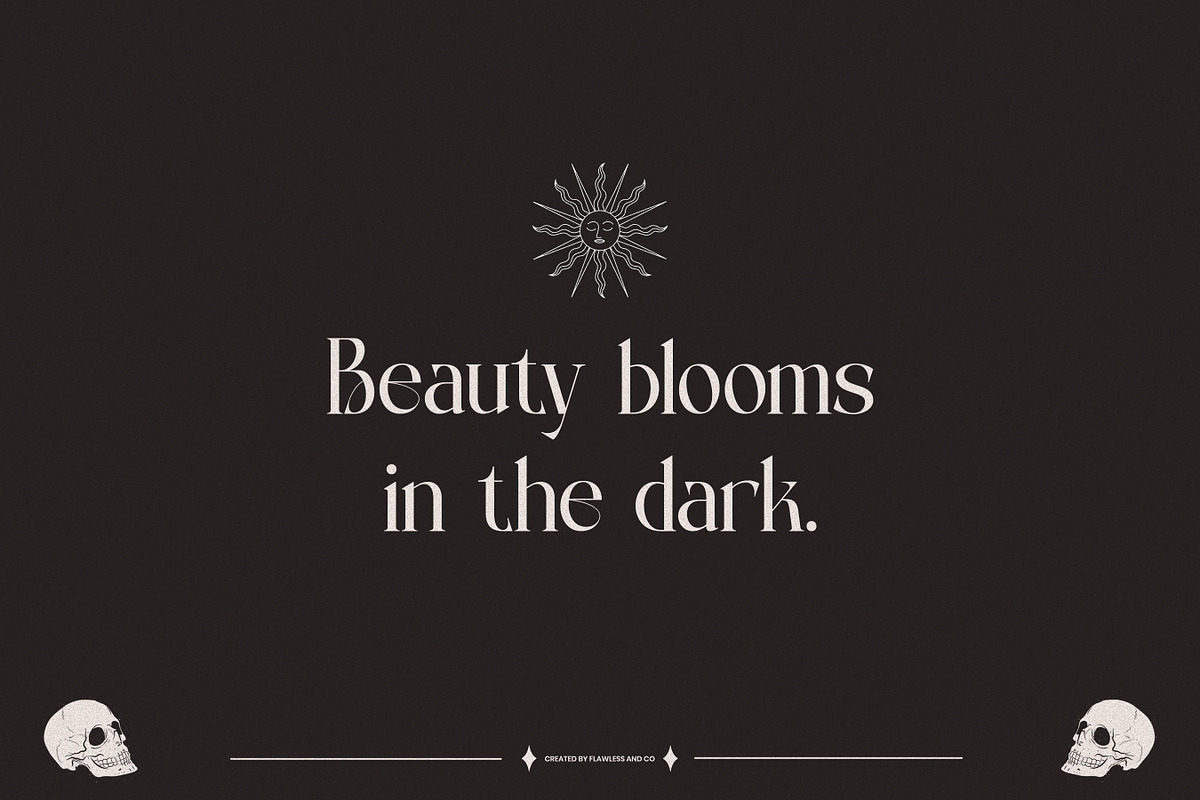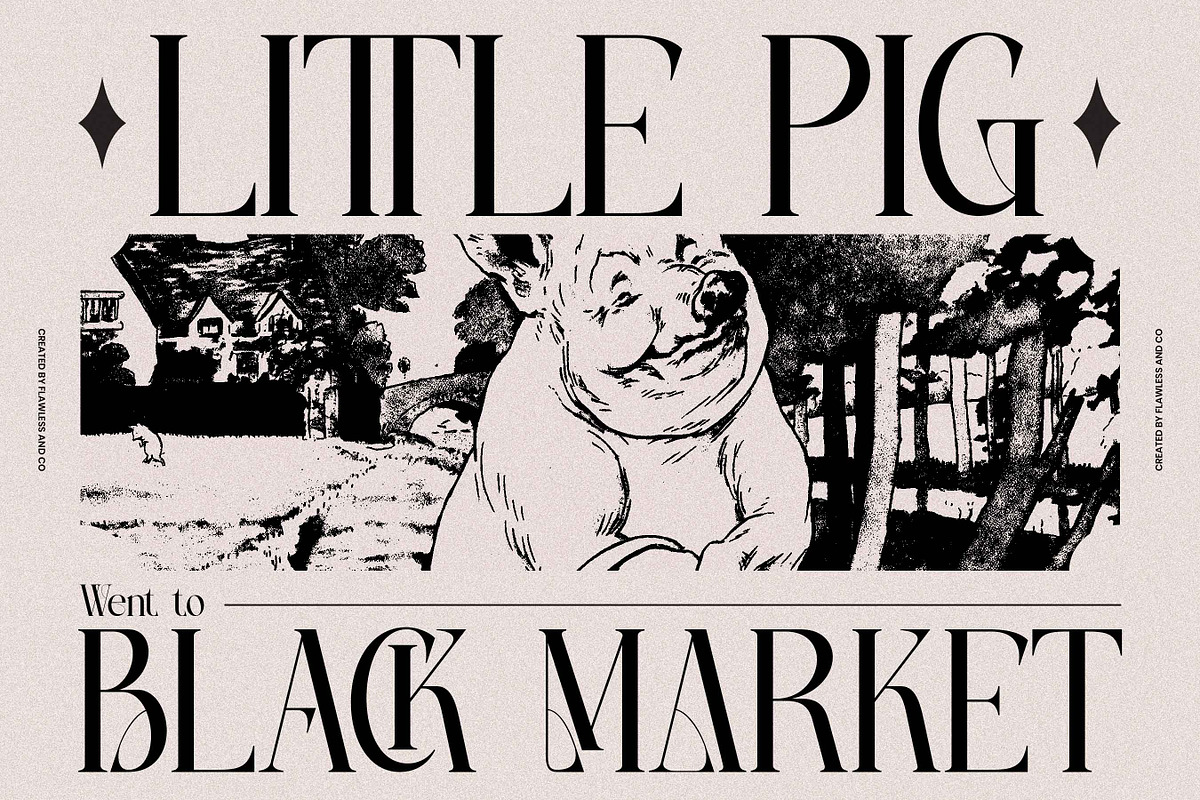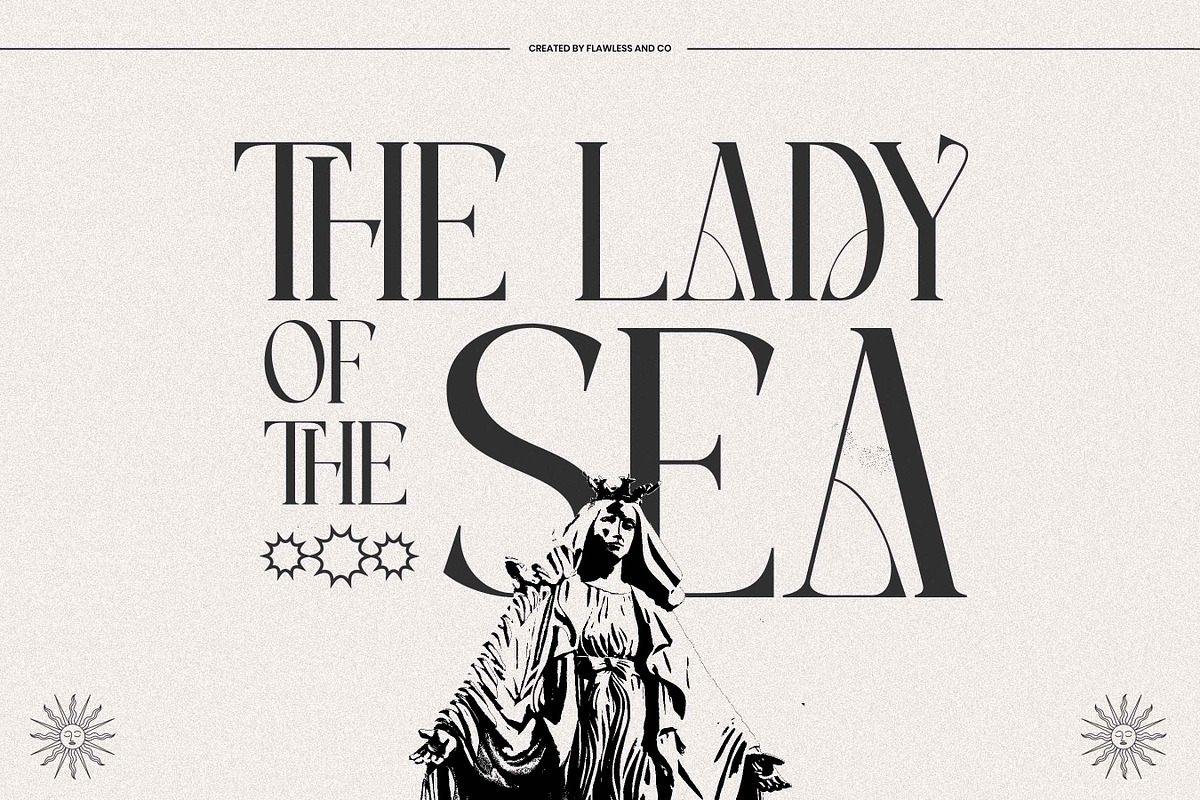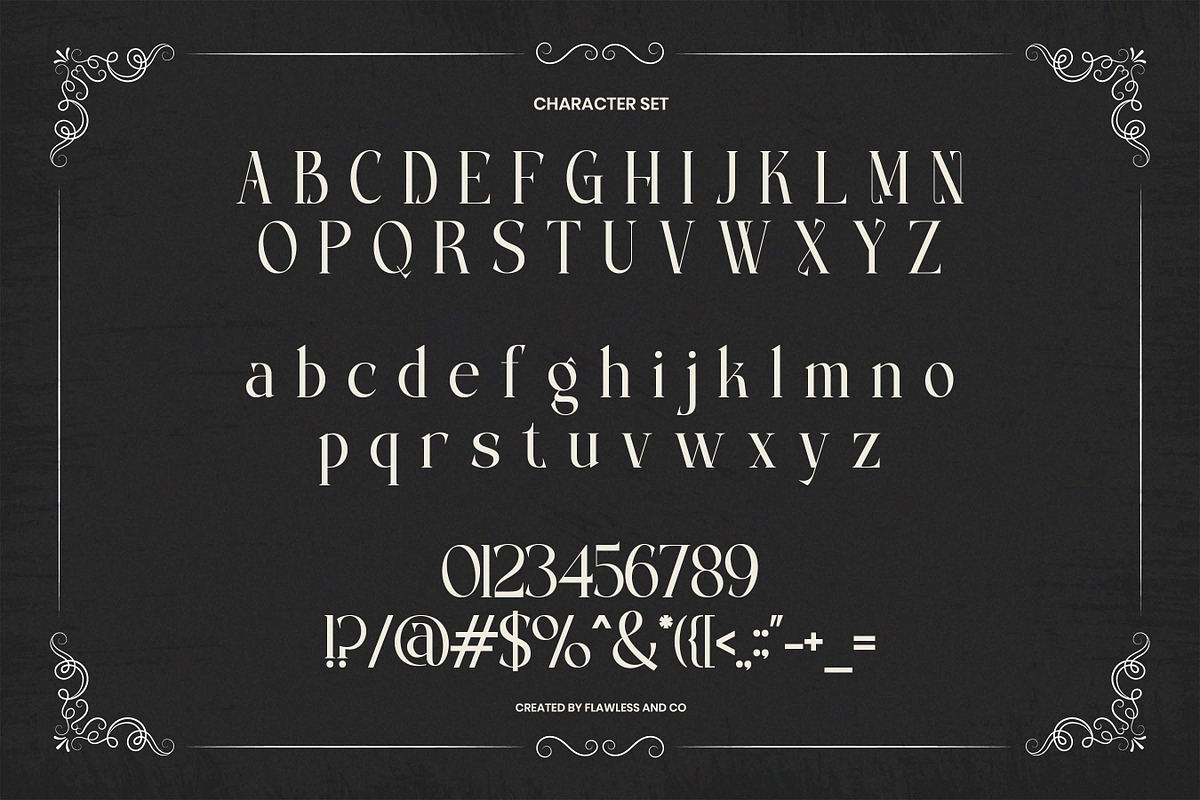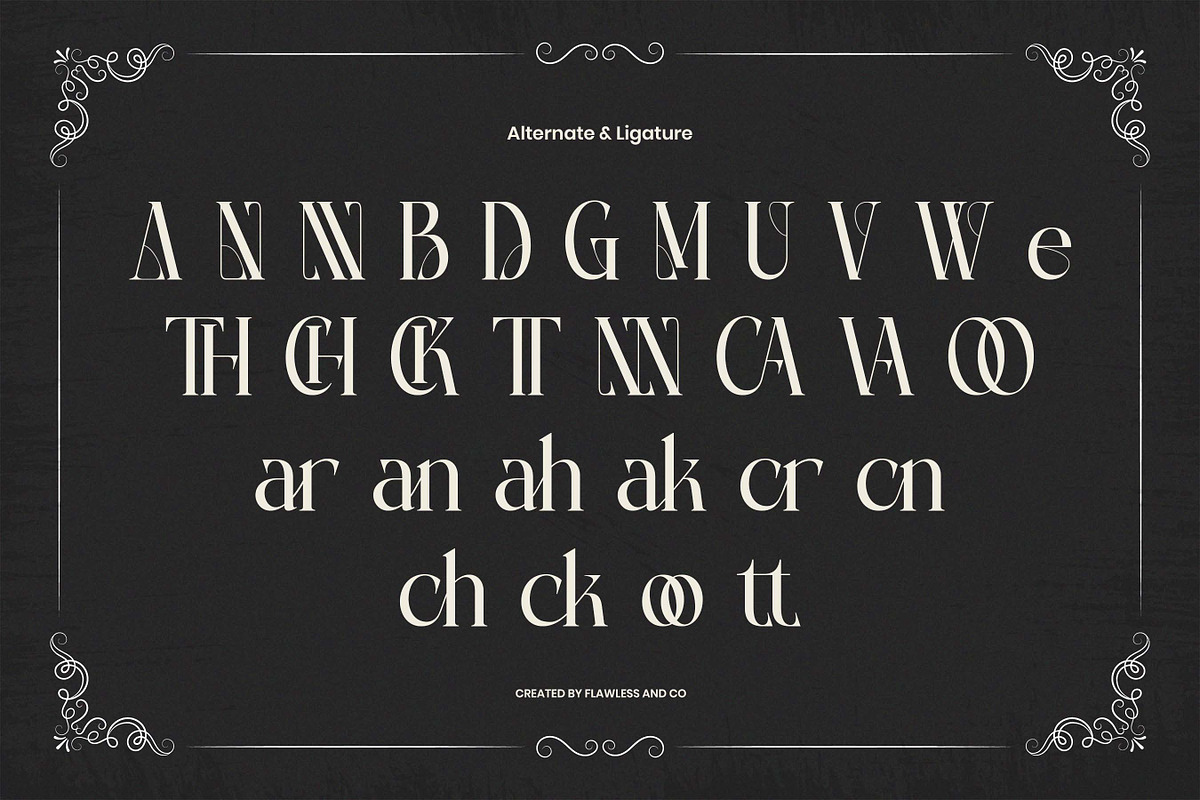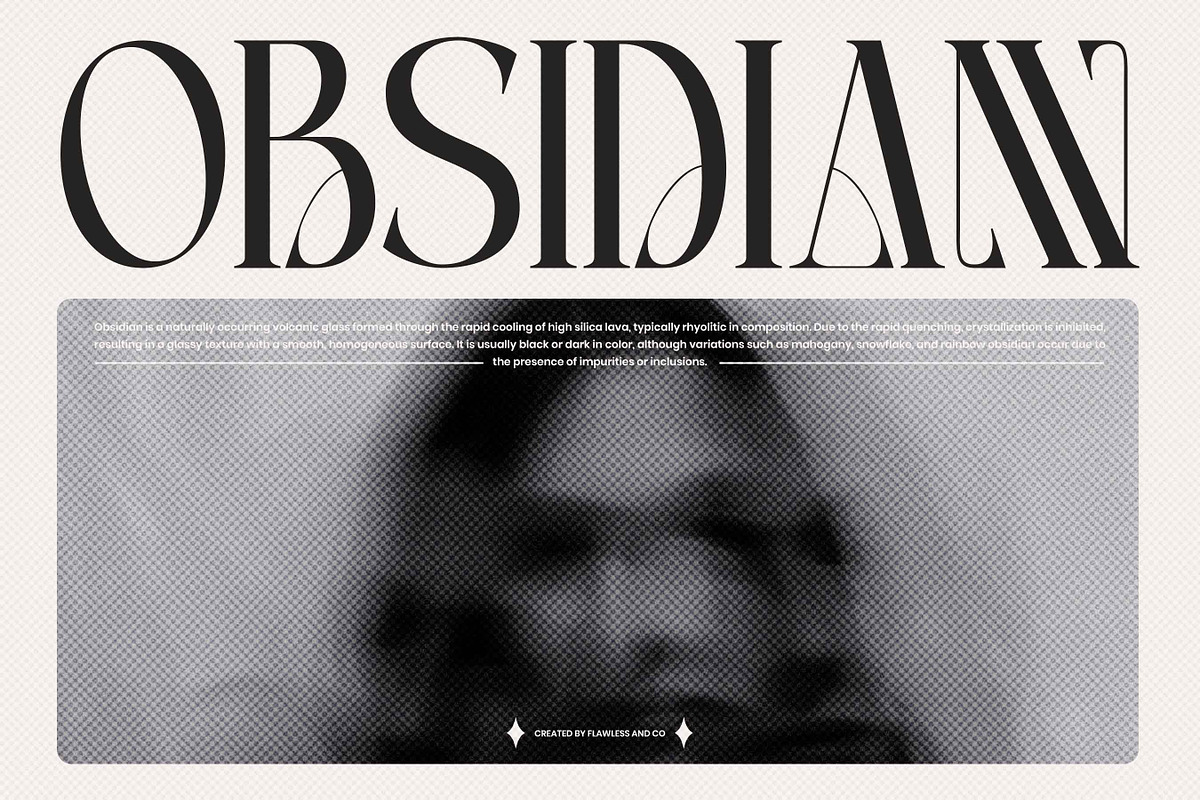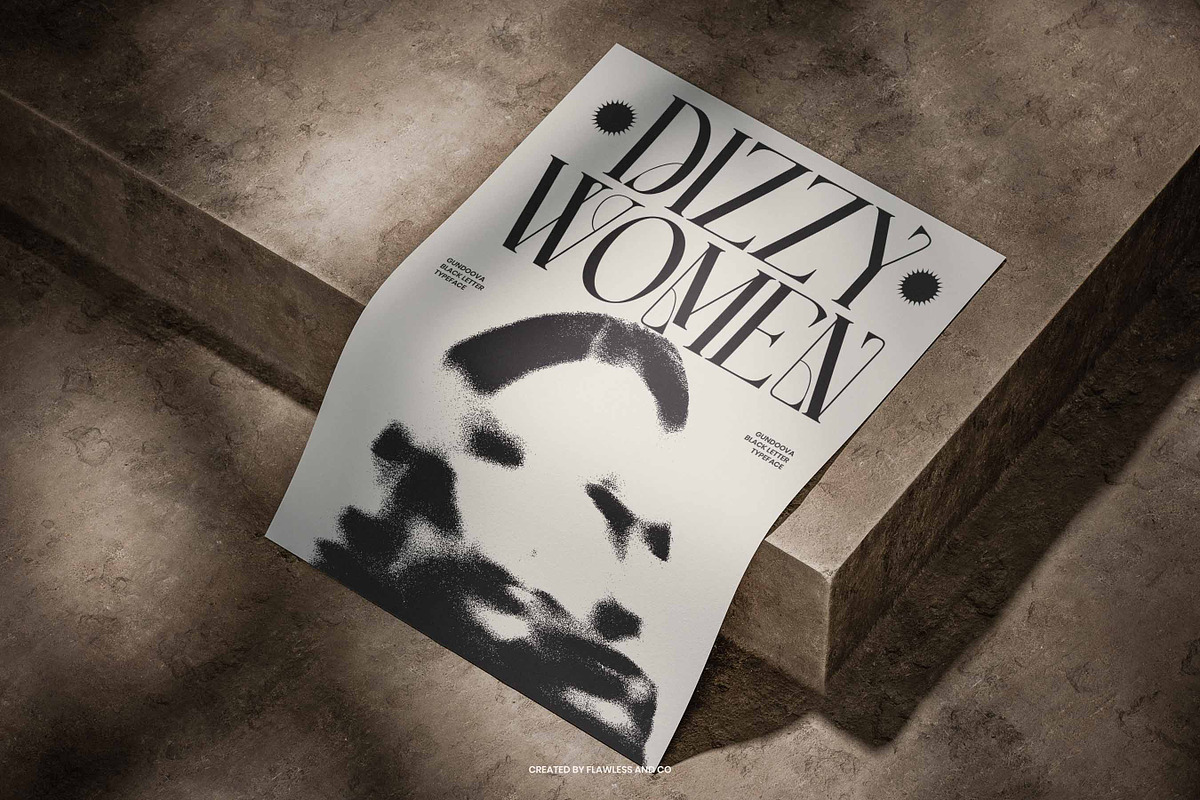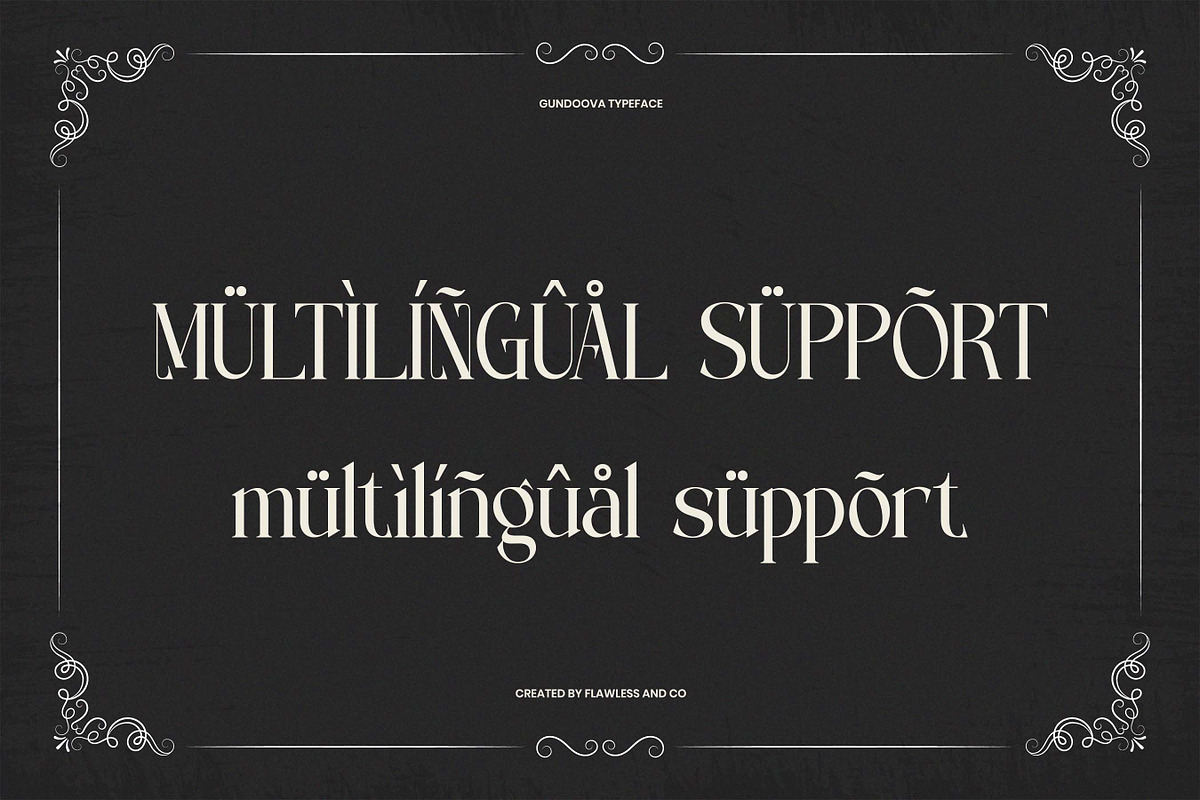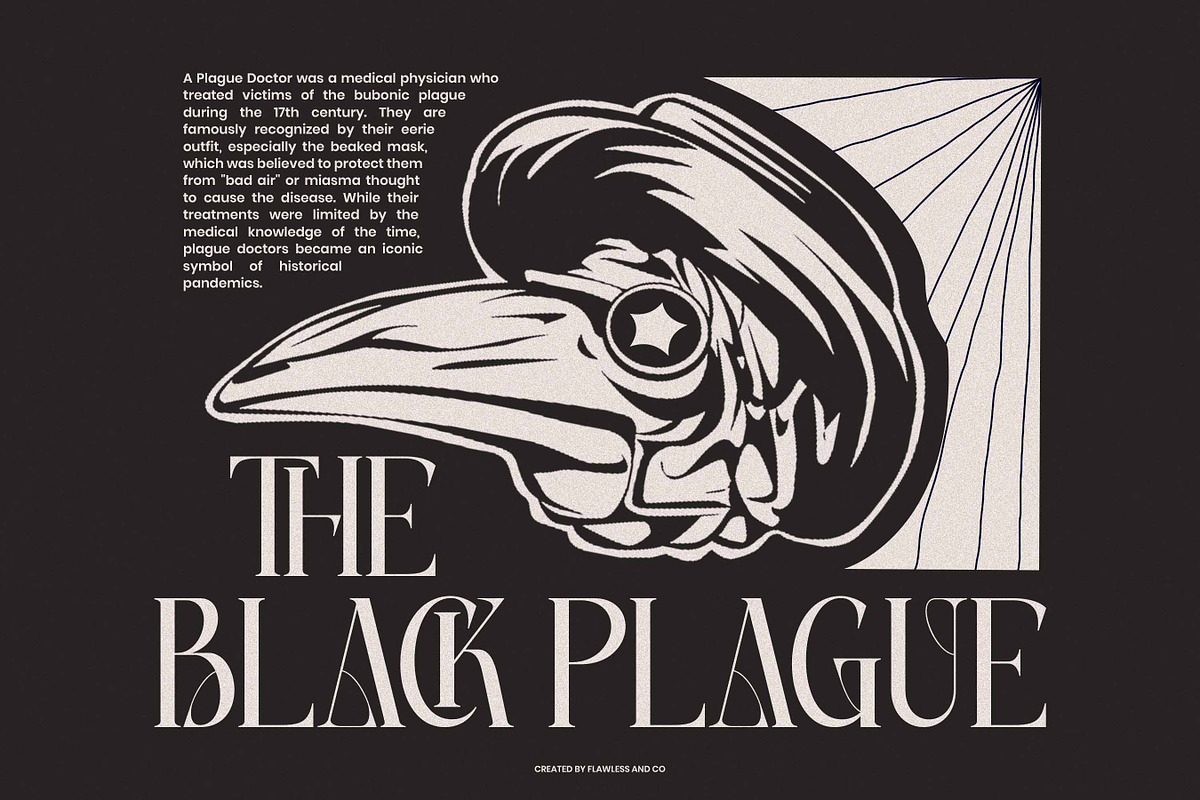
Gundoova - Blackletter Serif Font
Gundoova – A Bold Blackletter Display Font
Gundoova is a fierce and commanding blackletter font rooted in gothic tradition and medieval flair. Crafted with bold strokes, intricate detailing, and sharp serifs, Gundoova channels the power of historic typography into a bold, contemporary display style. Its dramatic presence and old-world elegance make it perfect for headlines, logos, tattoos, apparel, posters, and anything that craves a sense of dark allure and vintage authority. Whether you’re designing for a heavy metal band, crafting a liquor label, or exploring fantasy-themed branding, Gundoova brings intensity and sophistication in equal measure. The letterforms are carefully balanced to maintain readability while delivering an unmistakable blackletter identity that demands attention.
- All Uppercase Letters
- Classic Blackletter Style with Modern Edge
- Sharp Details & Ornamental Forms
Let Gundoova infuse your design with gothic boldness, medieval elegance, and a timeless sense of drama.
Who Should Use Gundoova?
Gundoova is made for creatives and brands that aren’t afraid to make a bold statement. Perfect for designers working on projects that need a gothic, vintage, or rebellious edge. Whether you're crafting album covers, barbershop branding, streetwear labels, motorcycle club logos, fantasy game titles, or tattoo studio visuals—Gundoova brings a fearless and dramatic presence to your typography.
It’s a go-to choice for:
- Tattoo artists & studios
- Barbershops & grooming brands
- Rock, metal & alternative bands
- Streetwear and apparel designers
- Liquor, cigar, and vintage product labels
- Medieval, fantasy, or horror-themed projects
- Creatives seeking high-impact, old-world style
If your design needs power, tradition, and attitude all in one — Gundoova is your weapon of choice.
A Must-Have Font for Brand and Logo Creators and Designers
Gundoova isn’t just a font—it’s a branding tool with attitude. Its bold, intricate letterforms and gothic flair make it perfect for designers who want their logos and brand identities to stand out with intensity and heritage. Whether you're building a high-impact wordmark, crafting an edgy brand concept, or developing a visual identity that commands attention, Gundoova delivers unmistakable character. From logos to labels, packaging to merchandise—this font gives your design a bold voice and timeless presence. If your work demands authenticity, grit, and unforgettable style, Gundoova belongs in your creative arsenal.
Why Choose GUNDOOVA for Brand and Logo Projects?
Because bold branding needs bold typography. Gundoova’s blackletter style blends gothic roots with modern edge—making it the perfect choice for logos that demand presence and originality. Its sharp, dramatic strokes and handcrafted feel create instant impact, giving your brand a voice that’s strong, confident, and full of character. Unlike generic fonts, Gundoova brings identity. It’s ideal for barbershops, tattoo studios, streetwear labels, music brands, vintage-inspired products, and anyone who dares to break the mold. If you're building a brand that’s not afraid to be different, Gundoova makes sure your message comes through loud and clear.
Suitable for:
Gundoova is ideal for a wide range of creative and branding purposes that require strong, expressive typography. Whether you're designing logos for barbershops, tattoo studios, rock bands, streetwear brands, or vintage-themed labels, Gundoova delivers unmatched boldness and character. It's also a powerful choice for posters, merchandise, album covers, signage, and editorial titles—anywhere you want to make a statement with dramatic, blackletter style.